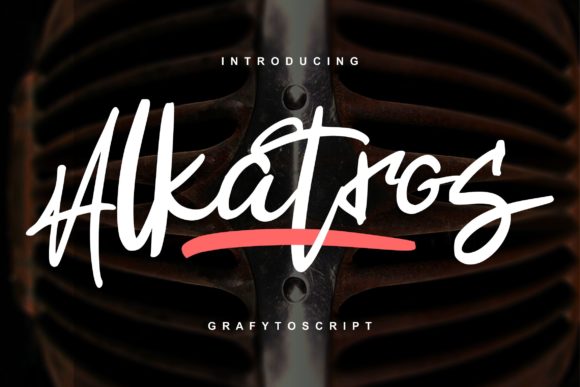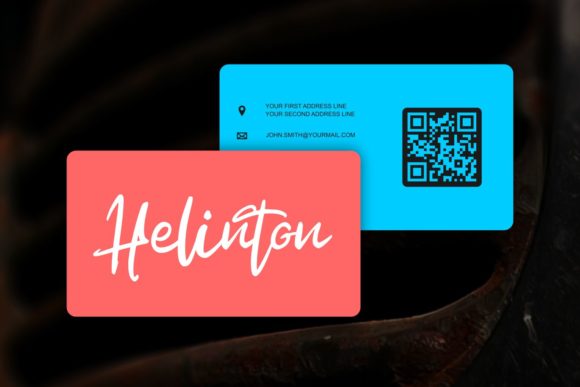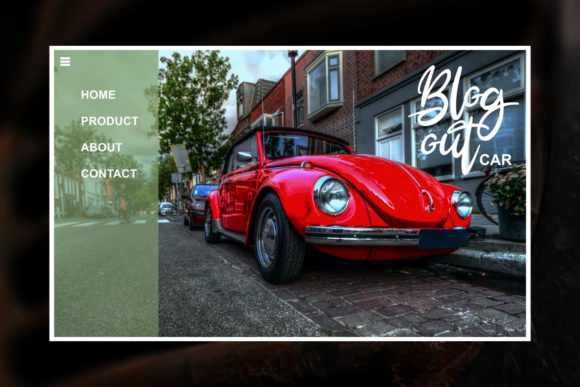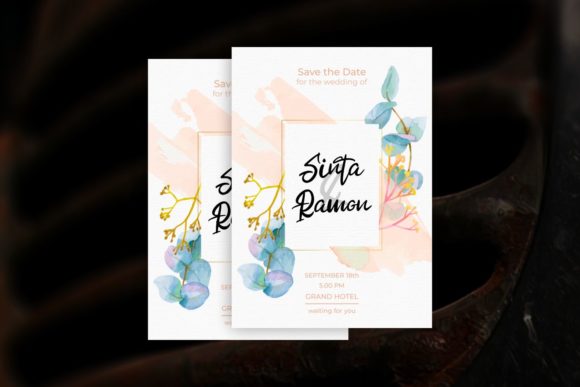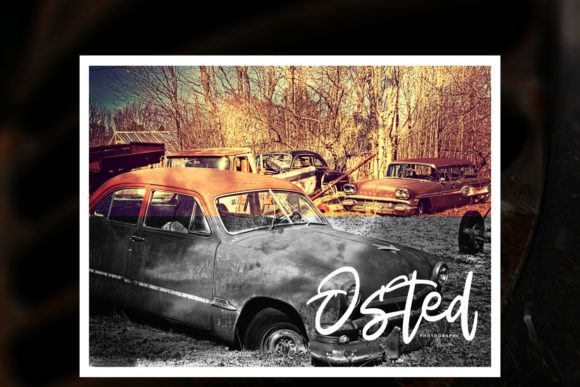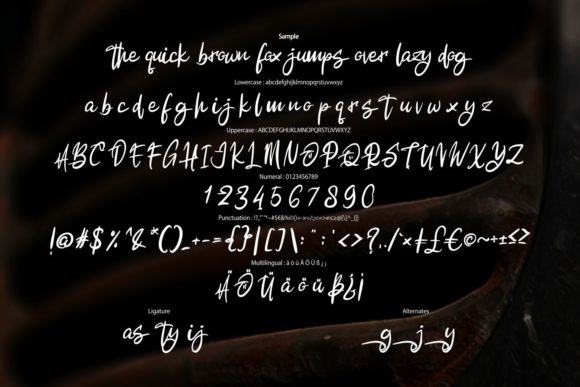
HomeScript FontsAlkatros Font Script Fonts Alkatros Font FacebookXPinterestWhatsApp Alkatros Font Poster 2 Alkatros Font Poster 3 Alkatros Font Poster 4 Alkatros Font Poster 5 Alkatros Font Poster 6 About Alkatros Font Alkatros is a friendly and modern script font. Get inspired by its authentic elements! DOWNLOAD ON CREATIVE FABRICAThis font is sold and delivered by Creative Fabrica. Font Canyon may earn a commission if you buy through this link. People also explored Armuss Font Gilligan Shutter Font YWFT Hannah Tartilla Font Hantham Font Dalipan Font Landy Notes Font Swimming Font Crafting Vintage Font 298 0 TagsAlkatros Font Previous articleRomanthica FontNext articleBeligo Cary Font LEAVE A REPLY Cancel reply Comment: Please enter your comment! Name:* Please enter your name here Email:* You have entered an incorrect email address! Please enter your email address here Website: Save my name, email, and website in this browser for the next time I comment. Personal Use Free Rise of Kingdom Personal Use Free Read more about this font Lanilla Personal Use Free Read more about this font Foo Personal Use Free Read more about this font Dealisya Personal Use Free Read more about this font BLOG To increase your work productivity, choose the most readable fonts. In today's fast-paced work environment, where digital communication and information consumption are integral to our daily routines, the choice of fonts can significantly impact... Best Fonts for YouTube Videos: Make Your Thumbnails Stand Out Using Fonts in Digital Marketing: Tips to Strengthen Your Brand Identity The 10 Best Handwriting Fonts to Add Personality to Your Designs